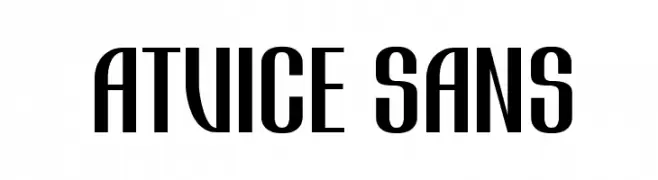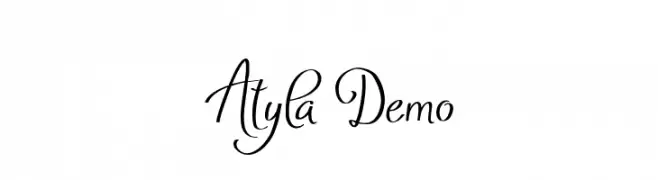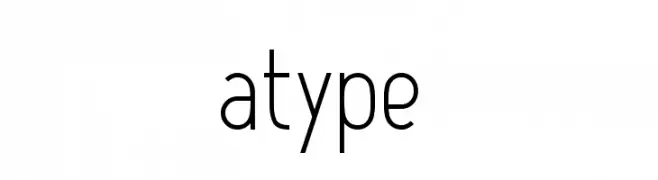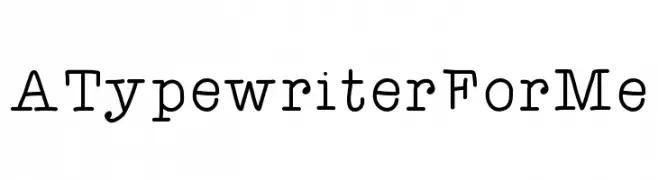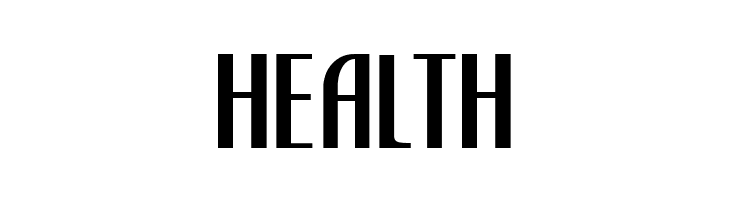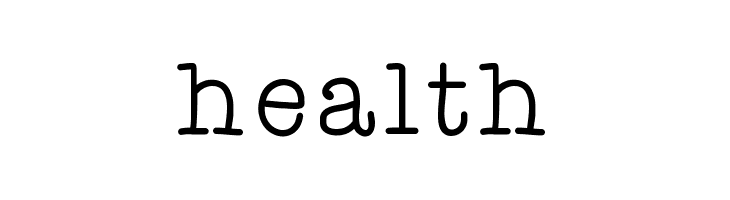
A bold, flowing script font with elegant curves and artistic flair.
A bold, geometric font with high contrast and unique angular cutouts.
An elegant script font with intricate flourishes and a calligraphic style.
A clean, modern sans-serif font with geometric structure and uniform width.
A sleek, modern font with tall, narrow characters and consistent stroke width.
A classic typewriter-style font with monospaced, evenly spaced characters.
A graceful and elegant script font with flowing, cursive letterforms.
An elegant, flowing script font with intricate loops and swashes.
A classic Blackletter font with ornate, angular characters and decorative flourishes.